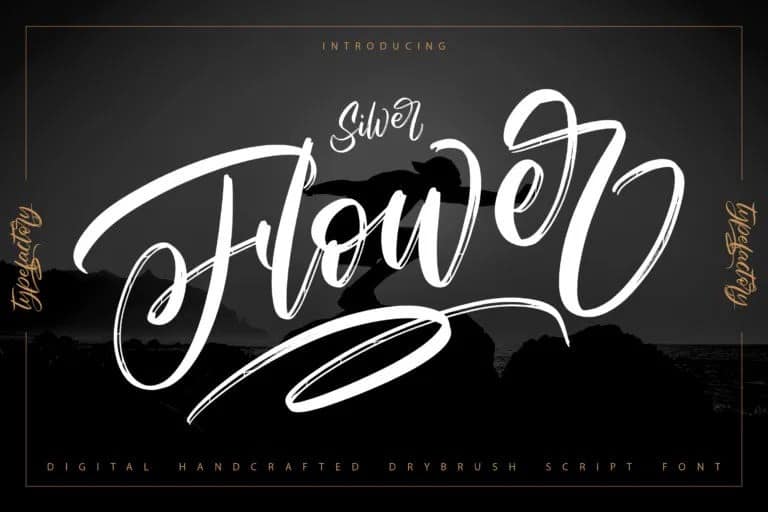
Silver Flower Brush Font
Silver Flower Brush Font – handwritten typeface inspired by urban fonts with sharp and beautiful letters that create fonts that are modern, trendy and elegant. Made from font designer named Type Factory. It’s a Drybrush Script typeface, perfectly suitable for creating quotes, books, lifestyle design such as logos, title, and magazine and more.